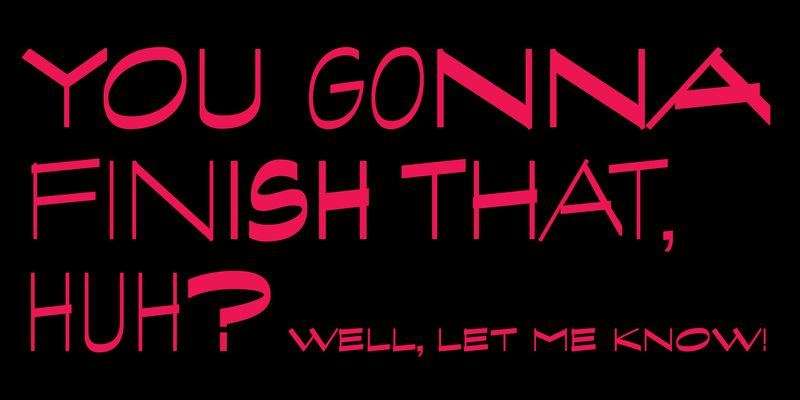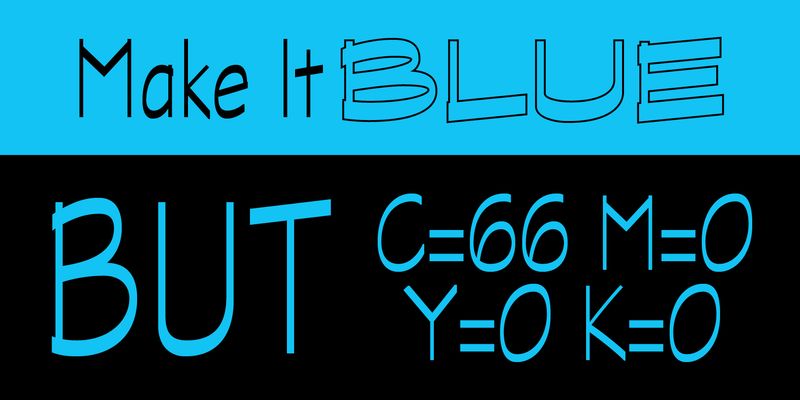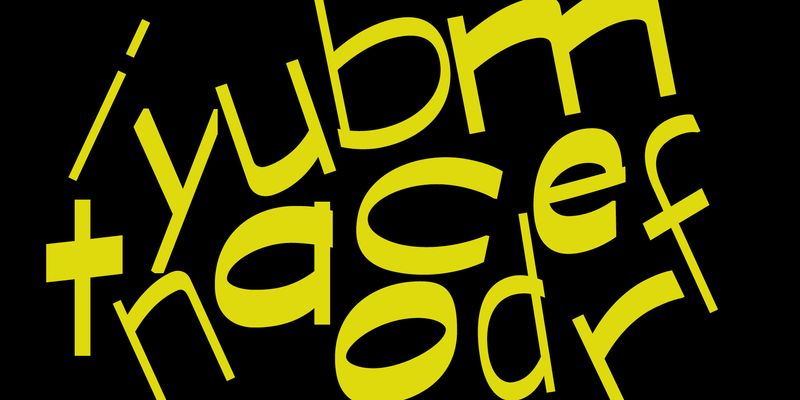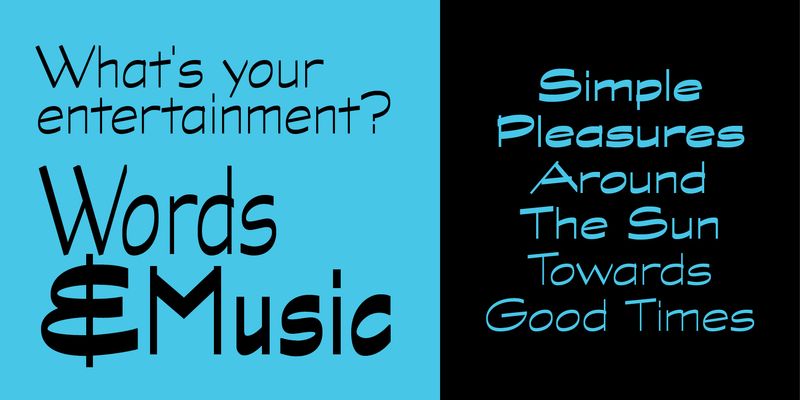
David Siegel began thinking about Graphite in 1982, looking for an architect’s handwriting with a “chiselled pencil” look, much like Tekton exemplifies the architect’s “pen and ink” metaphor. The handwriting of San Francisco architect Anthony Celis LaRosa became Siegel’s choice. With the assistance of David Berlow and Tom Rickner, Graphite was designed and released as a multiple master typeface with weight and width axes that allow for its use in a dynamic range from light condensed to black extended. Like Tekton, Graphite is an upright script with simple lines, and is usable in a large variety of informal copysetting situations.